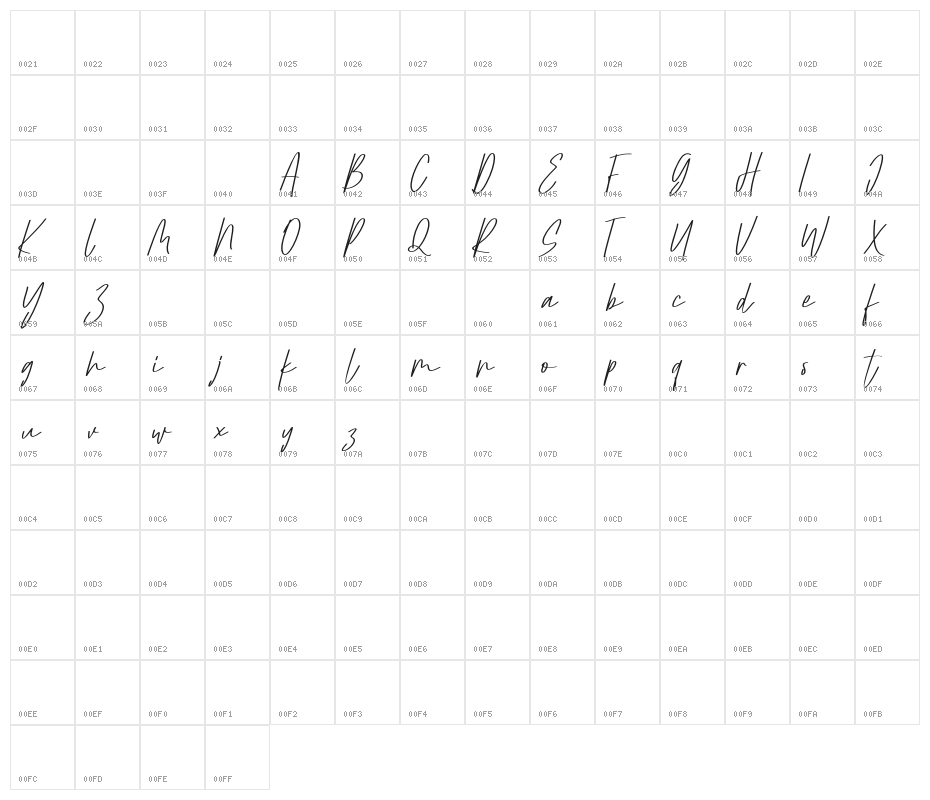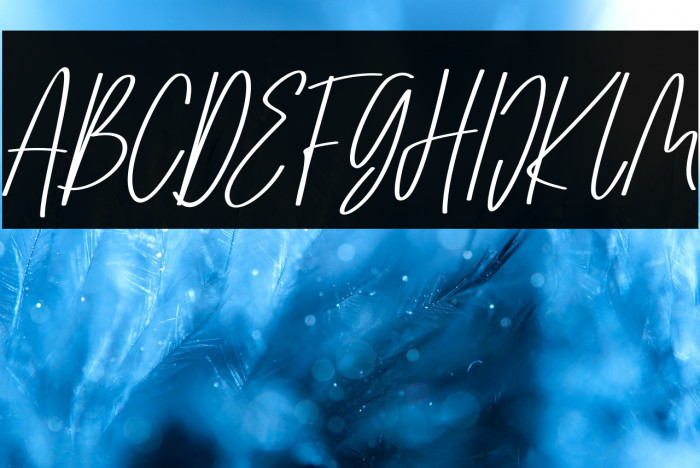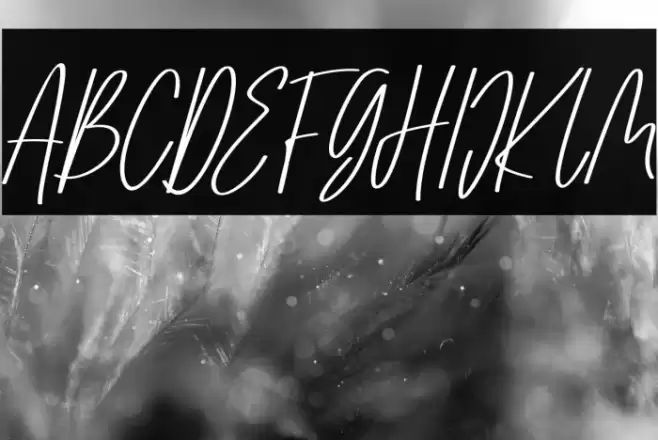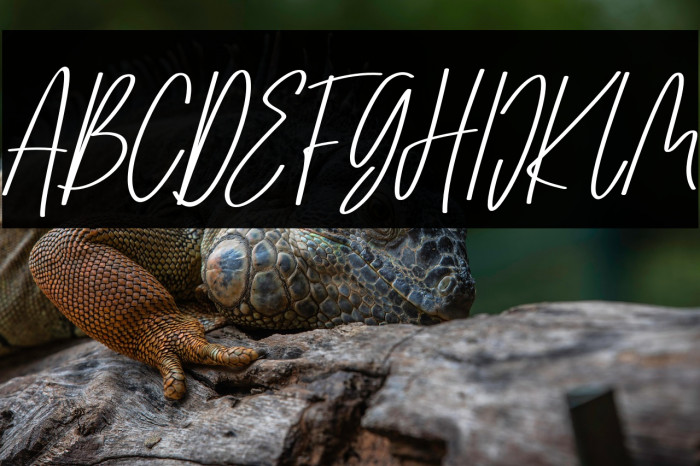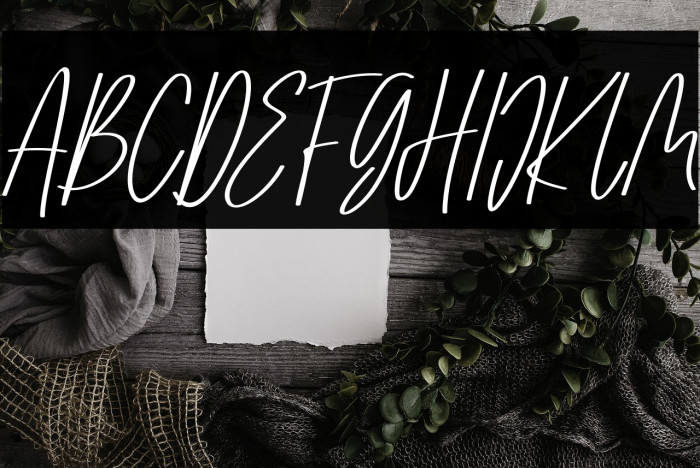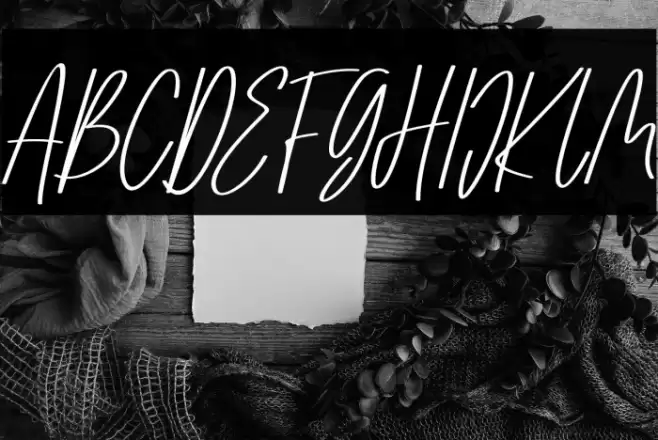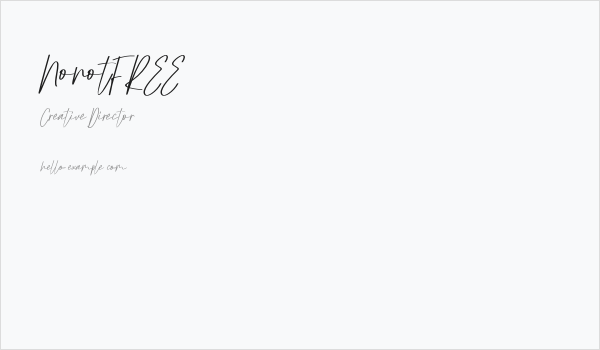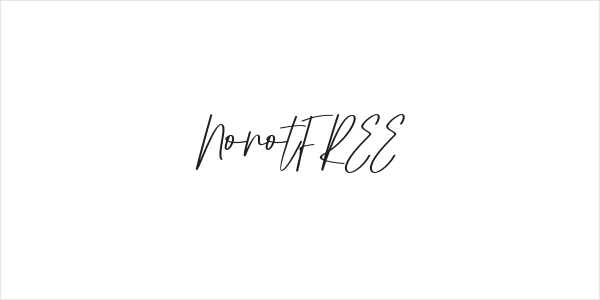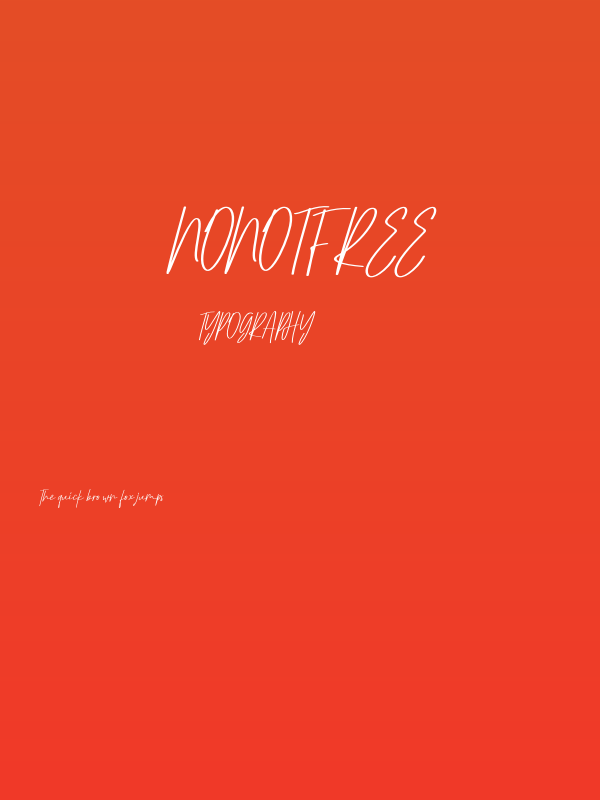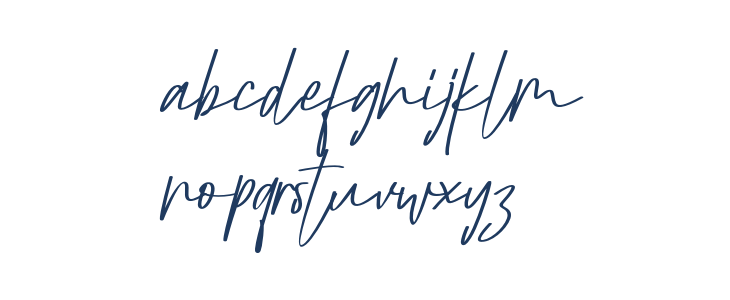
NonotFREE Font
NonotFREE Description
This font features a dynamic and expressive handwritten style, characterized by its fluid and cursive letterforms. The strokes are varied in thickness, giving it a lively and energetic appearance. The uppercase letters are tall and slender, while the lowercase letters maintain a consistent flow, enhancing the overall casual and personal feel. The font's irregularities and slight slant add to its charm, making it ideal for projects that require a personal touch. The spacing between characters is tight, which contributes to its cohesive look.
| Proposed Projects | Ideal for personal branding, invitations, greeting cards, and creative projects that require a personal and informal touch. |